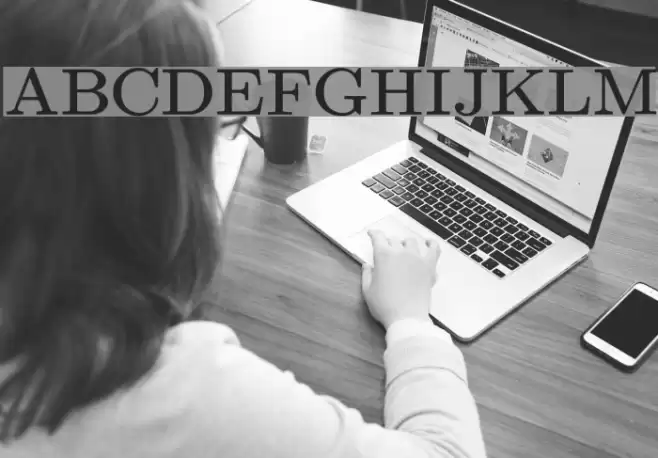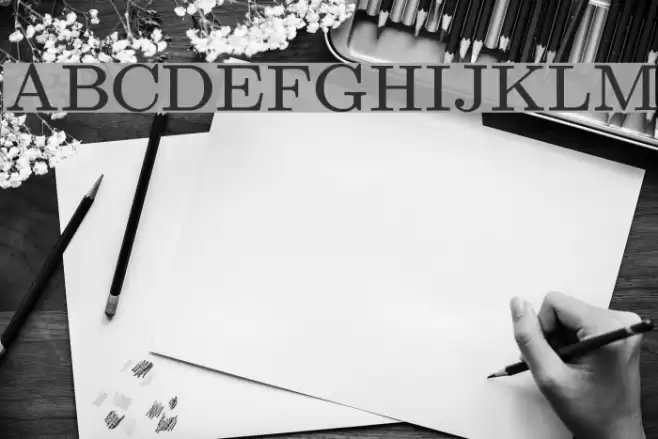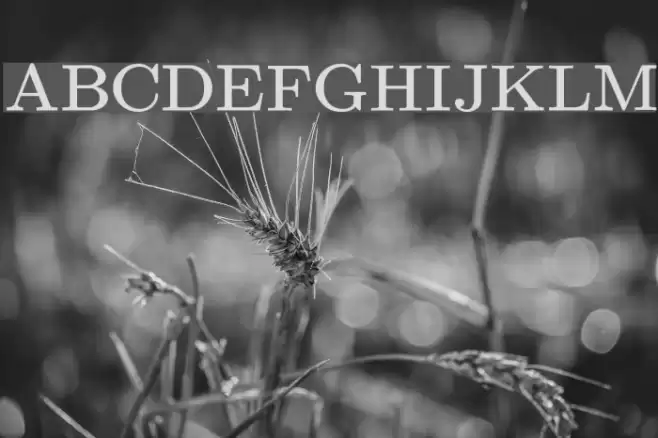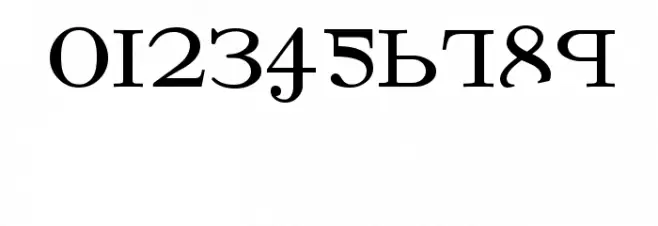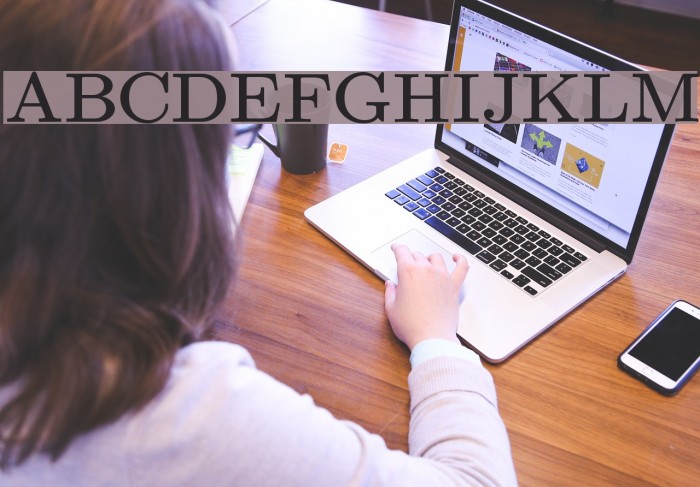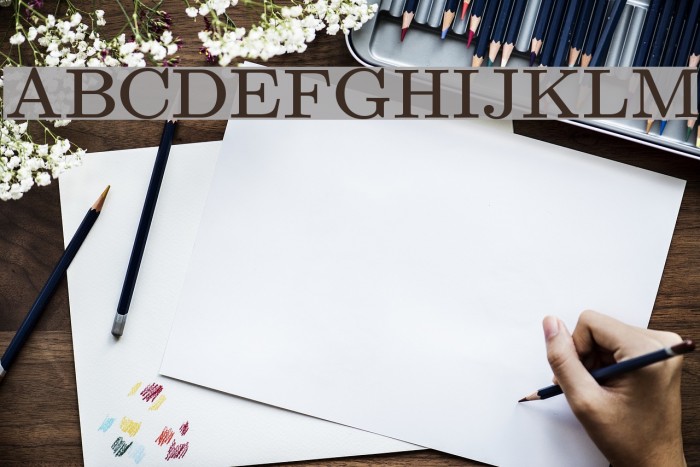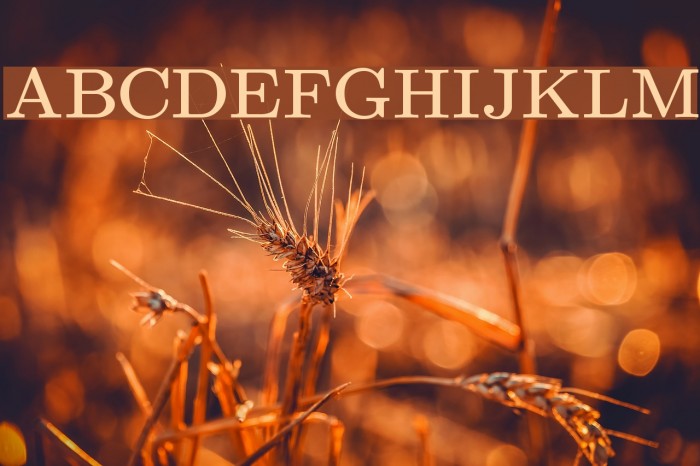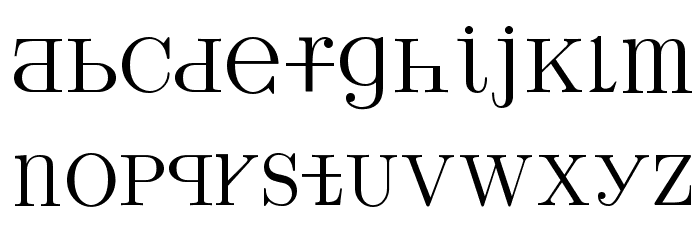
This font exhibits a classic serif style with distinct, sharp serifs that provide a traditional and formal appearance. The uppercase letters are bold and commanding, while the lowercase letters maintain a consistent style with slightly more delicate strokes. The numerals are well-proportioned and align seamlessly with the overall design. Special characters are crafted with the same attention to detail, ensuring uniformity across all glyphs. The font's design is reminiscent of traditional typesetting, making it suitable for projects that require a touch of elegance and sophistication.
A classic serif font with sharp serifs and a formal, traditional appearance.
- Proposed Projects: Ideal for book typesetting, formal invitations, certificates, and editorial design.
- Category: Serif
- Overall Style: Classic
- Use Case: Headlines, Body text